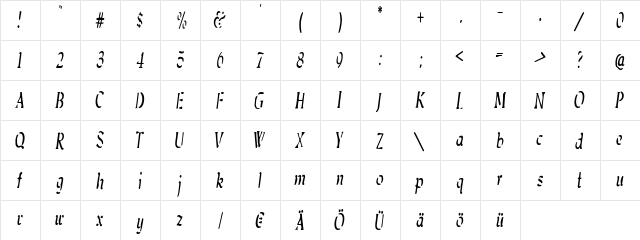
SoftAutumn Regular Font Preview
SoftAutumn Regular
Design Context for SoftAutumn Typeface
SoftAutumn is a composed and adaptable typeface that performs quietly and consistently across a wide range of design contexts.